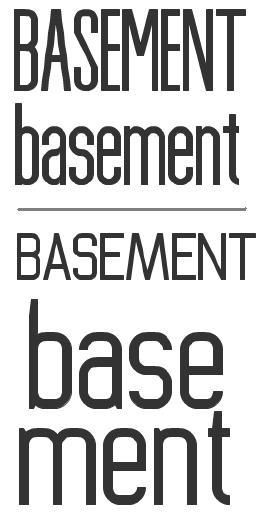
Mission accomplished. Very nice lex.
This is really great. I can't see a logo on the page you link to though.
Very nice font Bravo 10, I love it.
I working on a concept close to yours... Of course yours is more narrow which give nice diagonals for S per example. But I mean Like you I use the new macaronni brick for rounded shape and a kind a vector connection per example at the bottom of your "a". But I still have a lot of work on mine, proportion, etc.
I find your font very well balanced. great work looks like a vector font. Bravo encore!
@Michel - Thanks! I like yours as well, especially the angles on the terminals.
I've added Greek and fixed the '5' character.
nice work!
Also - fixed the '6'
Just fixed the lower-case sigma
Congratulations! FontStruct Staff have deemed your FontStruction worthy of special mention. “Dinosaur Gothic” is now a Top Pick.
I love how you flesh out the character set like few do, here. The Greek alphabet is a particularly delightful and compelling addition.
@Will: Thanks! I'm always nervous about including Greek, since I don't really know if the glyphs look OK to Greek readers.
GREAT FONT!!!
One of the best condensed font. I use this.
I cannot design this same font but in the Arabic version, it would've been interesting to, but good font.